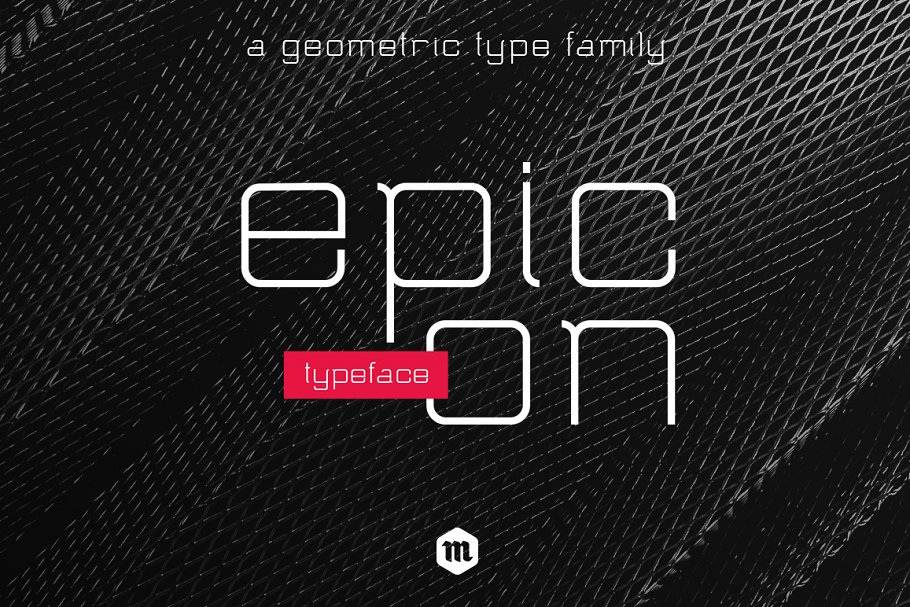
Epicon Font
This legendary typeface is perfect for epic storytelling, heroic branding, gaming logos, fantasy novels, adventure films, mythological projects, cinematic titles, legendary merchandise, and monumental design applications.
What makes this font exciting is its epic grandeur combined with heroic authenticity, offering designers a monumental typeface that captures the essence of legendary tales while delivering mythological sophistication and timeless epic appeal.
The Epicon font family includes light, regular, medium, bold, black, and legendary variations, providing complete epic design solutions for creating heroic storytelling visual identities.
Whether you're developing fantasy entertainment brands or crafting legendary narrative experiences, Epicon Font Free Download brings exceptional epic atmosphere and mythological authenticity to every application. This monumental typeface combines classical heroic typography with contemporary storytelling design, creating letterforms that inspire adventure and celebrate greatness. The font's legendary construction and epic-ready details make it perfect for brands seeking immediate heroic recognition.
Epicon Font features carefully crafted epic styling with authentic legendary character that conveys genuine mythological expertise. Each character has been designed to embody the grandeur of epic tales, with commanding proportions and heroic elements that enhance the monumental aesthetic. The font's epic qualities make it particularly effective for entertainment brands and storytelling applications.
Professional designers choose Epicon Font for projects requiring authentic epic credibility and legendary atmosphere. Its mythological heritage makes it exceptionally well-suited for gaming companies, entertainment studios, and adventure-focused lifestyle brands. The font's versatile epic variations allow designers to control the legendary intensity, from subtle heroic elegance to full mythological celebration.
The complete Epicon Font package offers extensive epic ornaments and legendary decorative elements that enhance the heroic aesthetic. Advanced mythological features allow designers to create complex epic effects with multiple adventure-inspired options. This comprehensive legendary toolkit ensures designers have everything needed to create authentic epic communications that celebrate the enduring power of heroic storytelling and mythological grandeur.